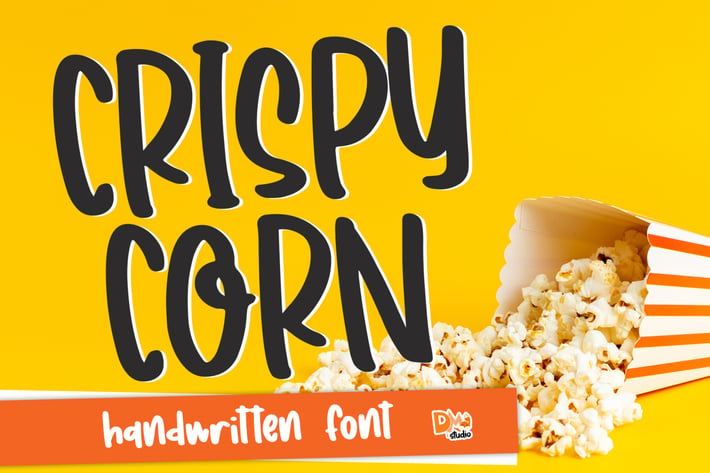
Crispy Corn - Handwritten Font
DmLetter
Crispy Corn
Introducing this stylish handwritten Font! Get creative using this crafty and lovable font style!